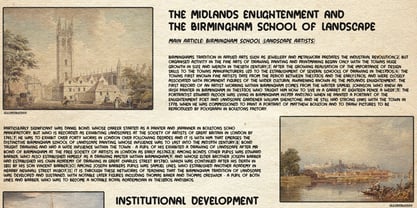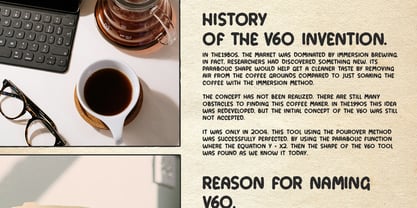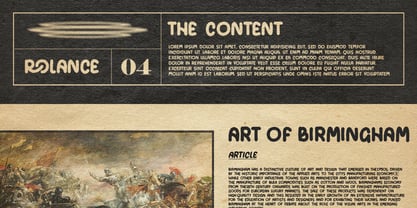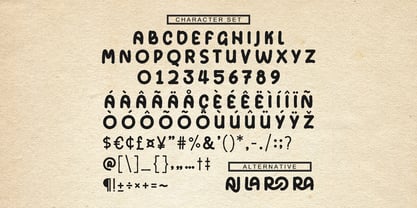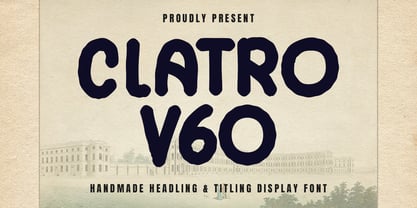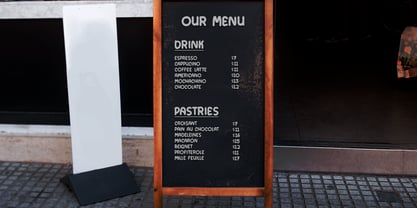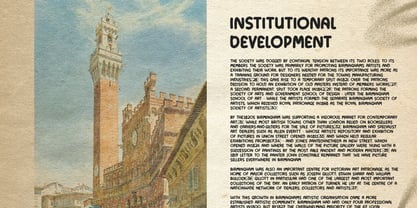
MC Clatro V60
by Maulana Creative
The MC Clatro V60 Font Family was designed by Gilang Maulana and published by Maulana Creative. MC Clatro V60 contains 1 styles. More about this family
Clatro V60 is a vintage casual titling font. With bold stroke, fun character with a bit of ligatures. To give you an extra creative work. Clatro V60 font support multilingual more than 100+ language. This font is good for logo design, Social media, Movie Titles, Books Titles, a short text even a long text letter and good for your secondary text font with sans or serif. Make a stunning work with Clatro V60 font.
Designers: Gilang Maulana
Foundry: Maulana Creative